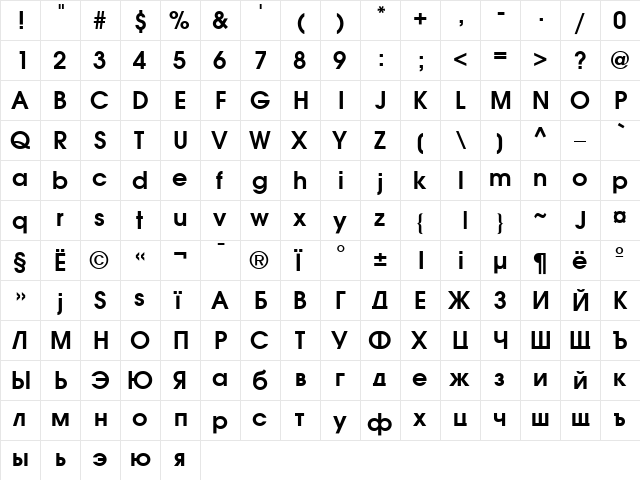
AG Avalanche-Bold Bold
Design Context for AG Avalanche-Bold Typeface
AG Avalanche-Bold offers clean, dependable letterforms without strong stylistic allegiance, making it a practical choice for designers who need flexibility. The heavy weight commands attention and anchors typographic hierarchies.
Pro Tip: Use AG Avalanche-Bold in both headline and body roles to test its range before committing to a single application.